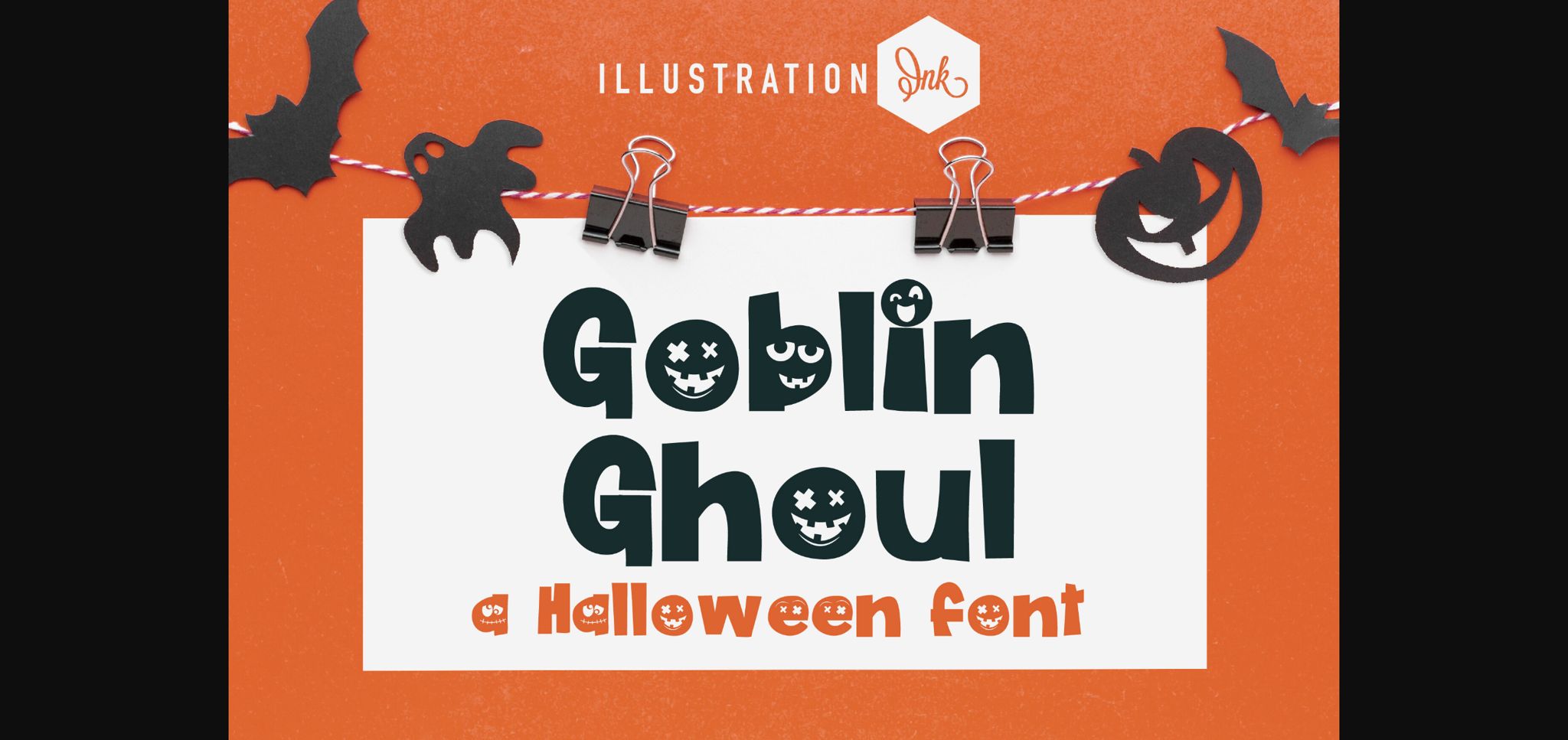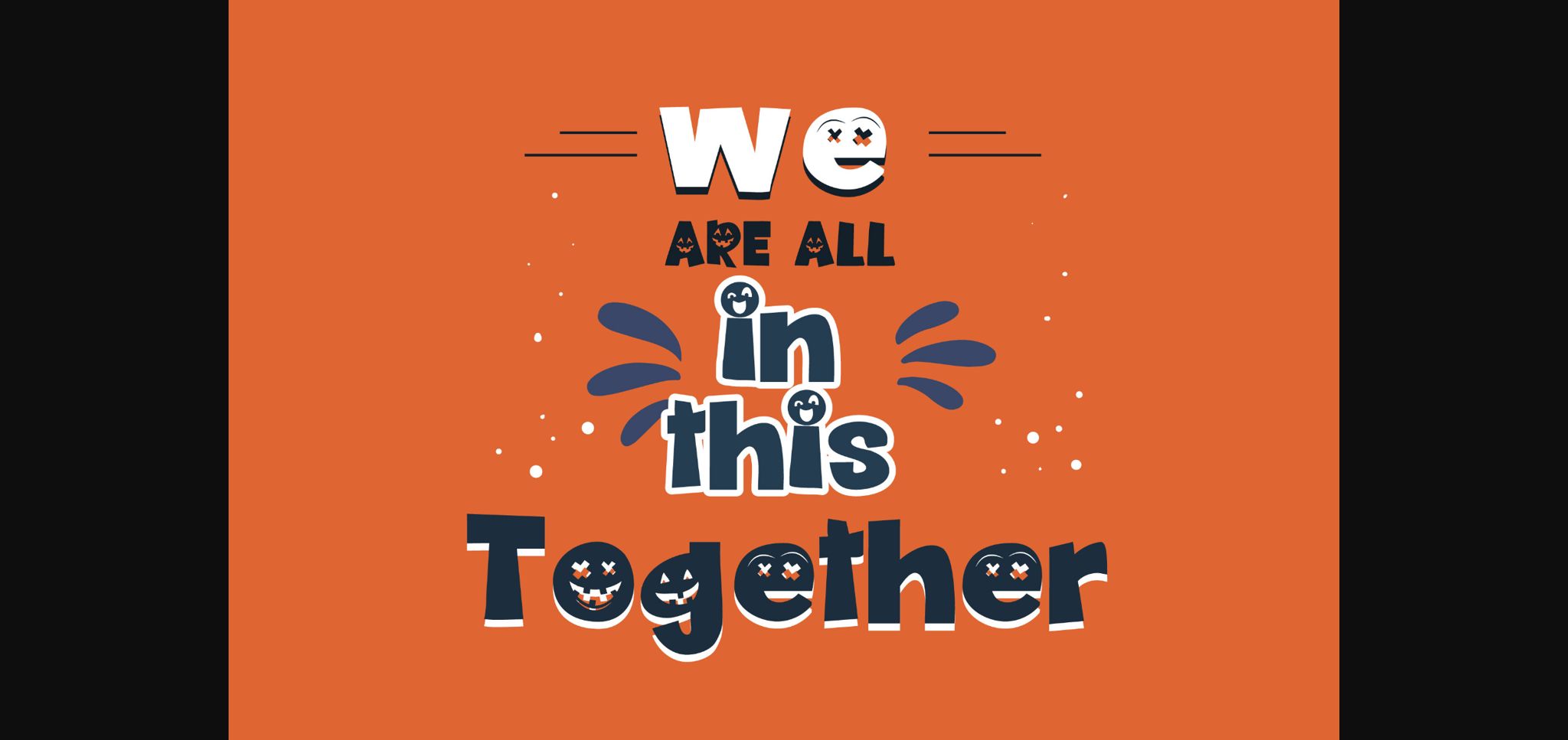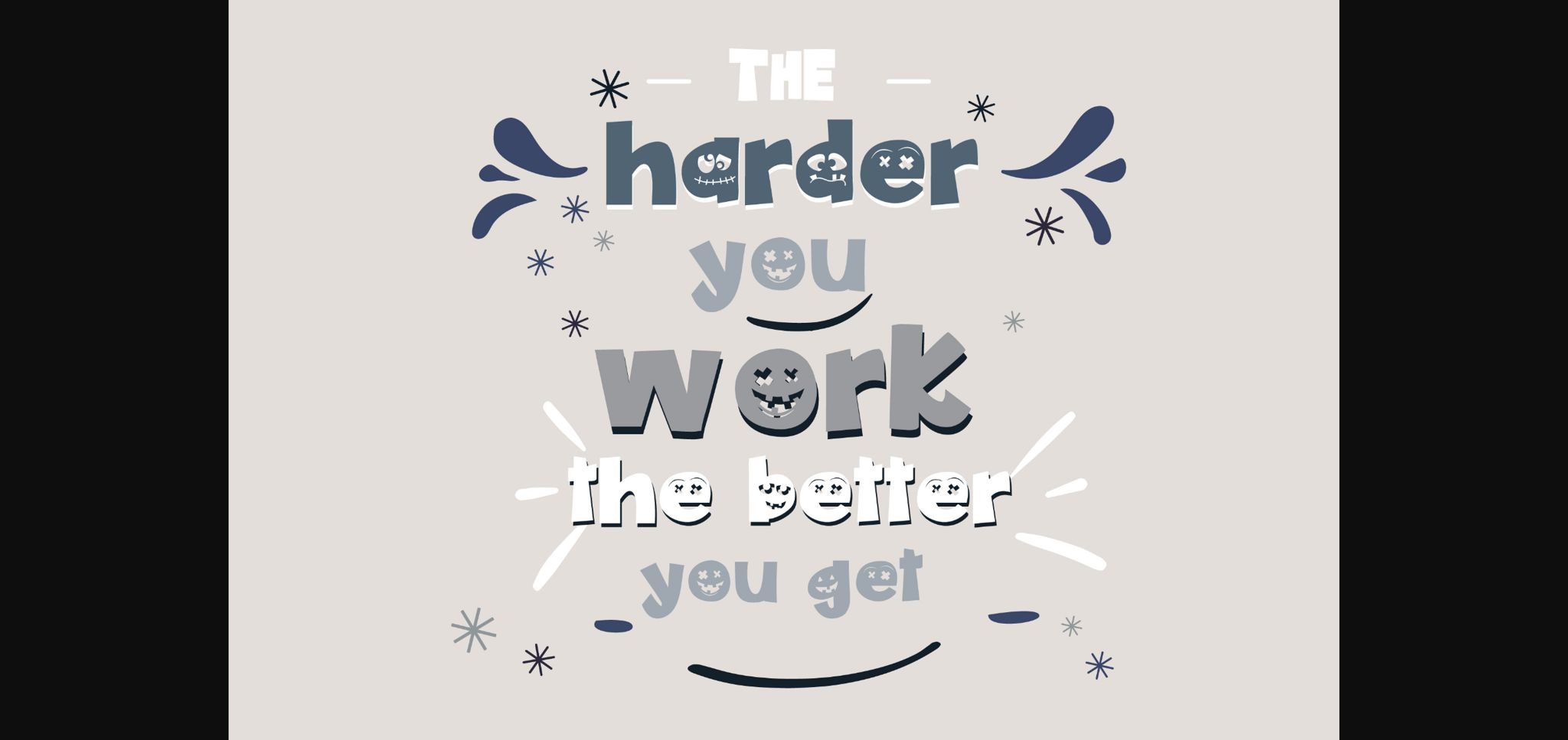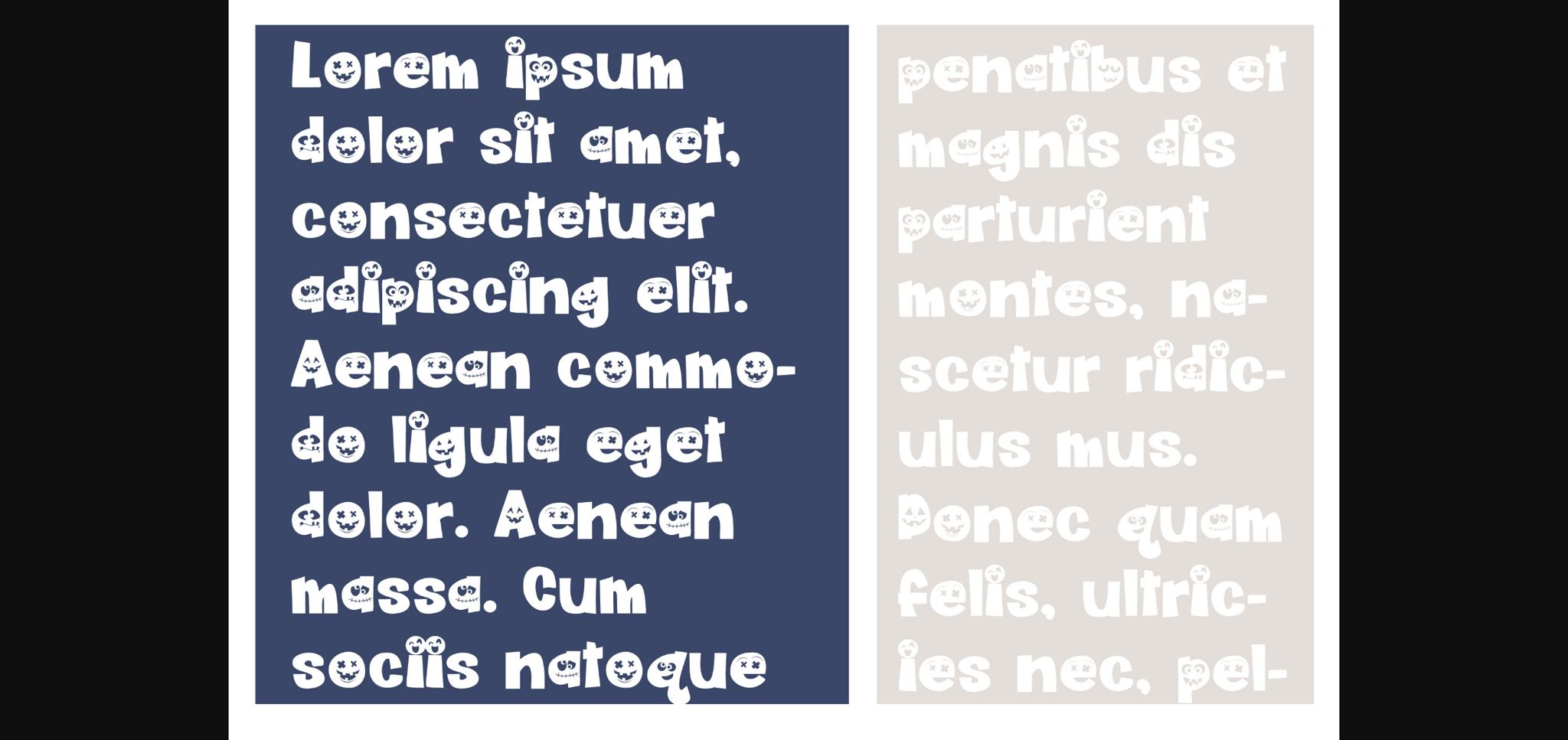
About Goblin Ghoul Font
This hand-crafted sans serif features jack-o-lantern faces throughout.
A hand-crafted font is a font that is designed to look like it was written by hand. It is often used for invitations, greeting cards, and other items. Handwritten fonts can be either formal or informal, and they can be used for a variety of purposes.